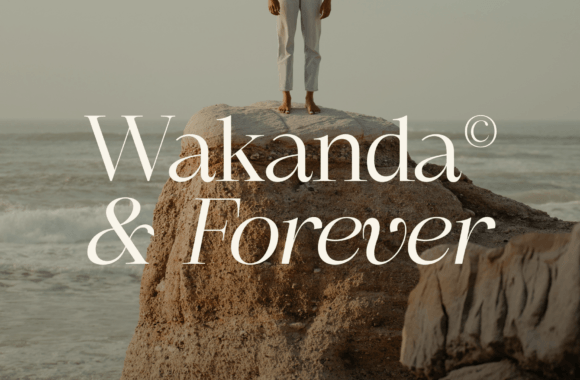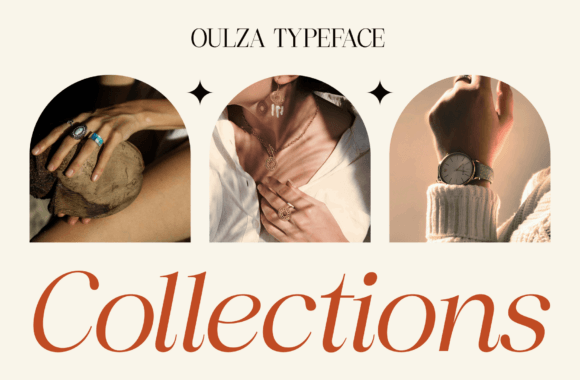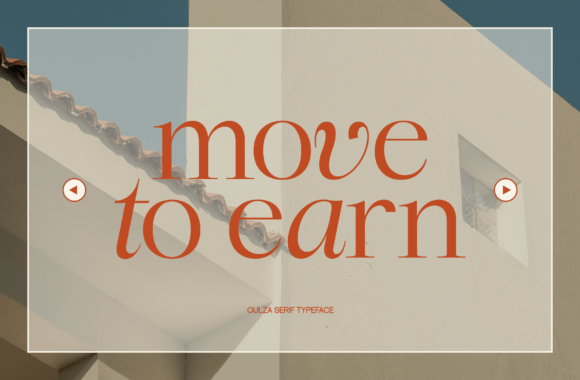
Introduction to Oulza Font
Introducing Oulza is an elegant serif font that exudes sophistication and style.
It comes in two distinct styles: Regular and Italic, offering versatility for various design needs The font’s sharp, refined edges and balanced proportions create a timeless, classic look, making it perfect for high-end branding, editorial designs, or luxurious presentations.
Key Features of Oulza Font
Why Choose Oulza Font?